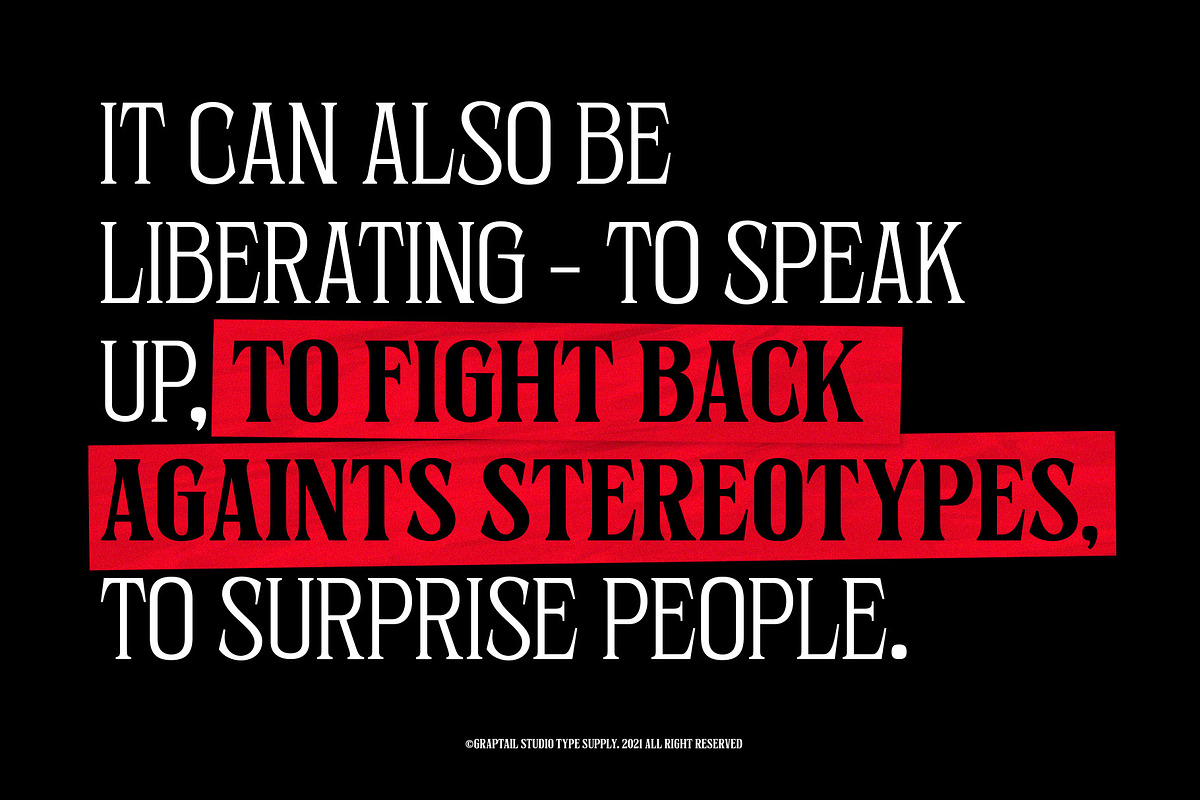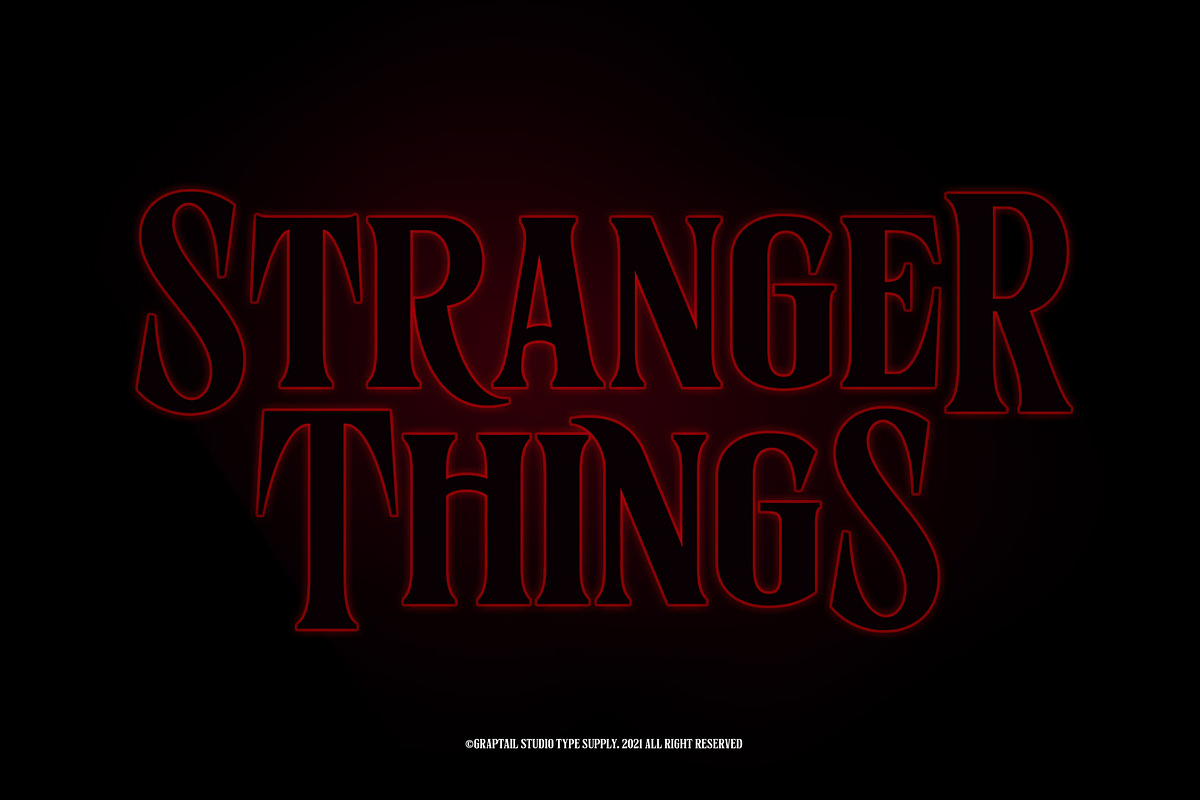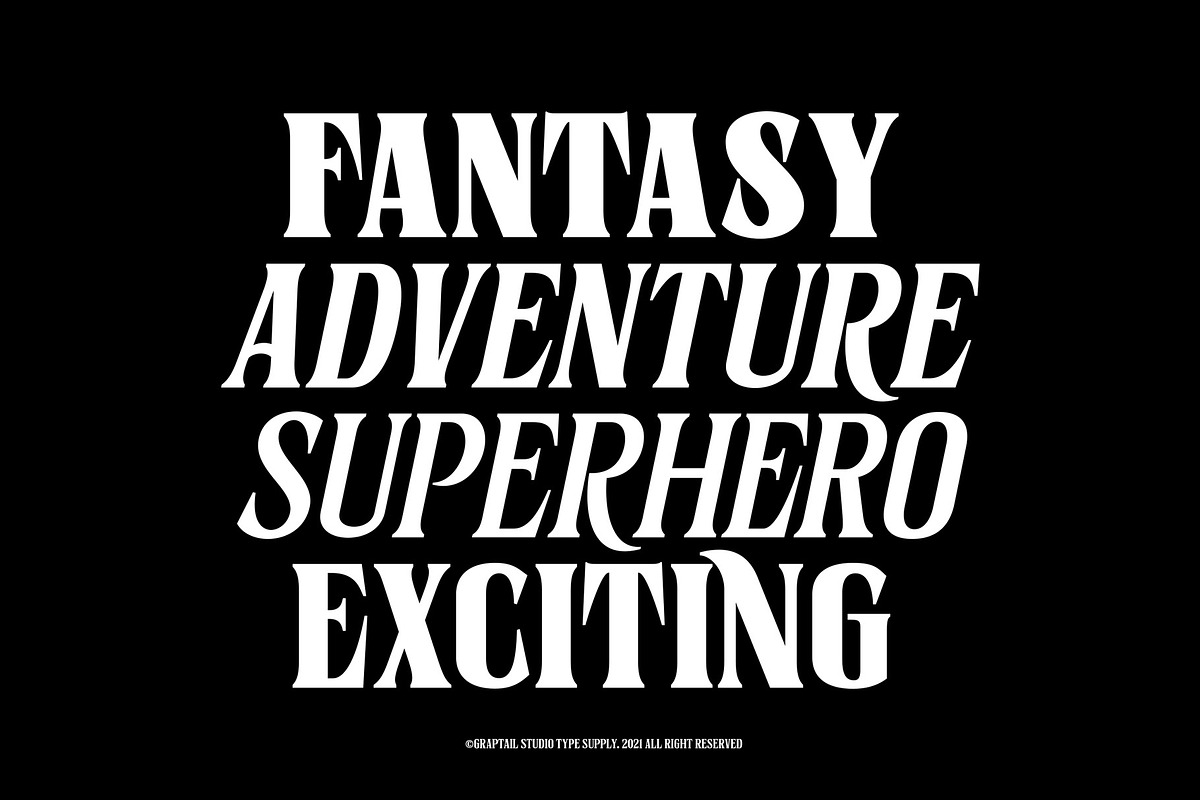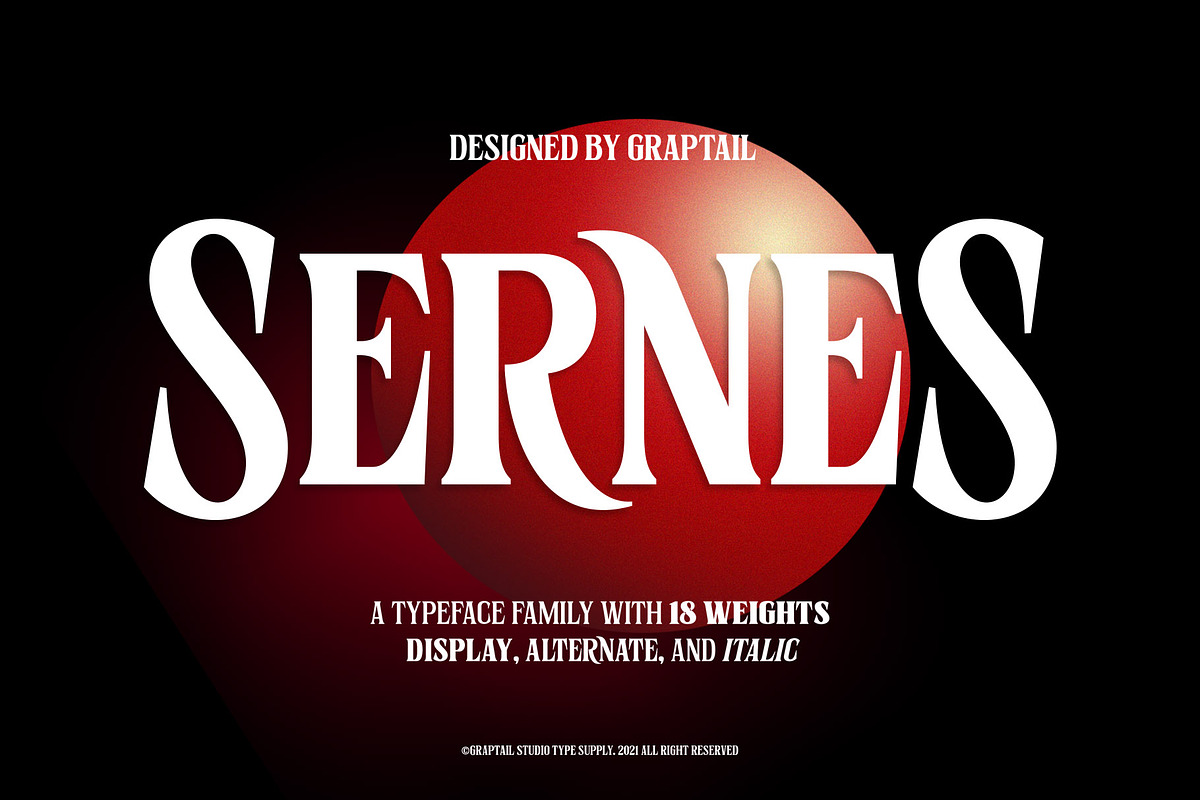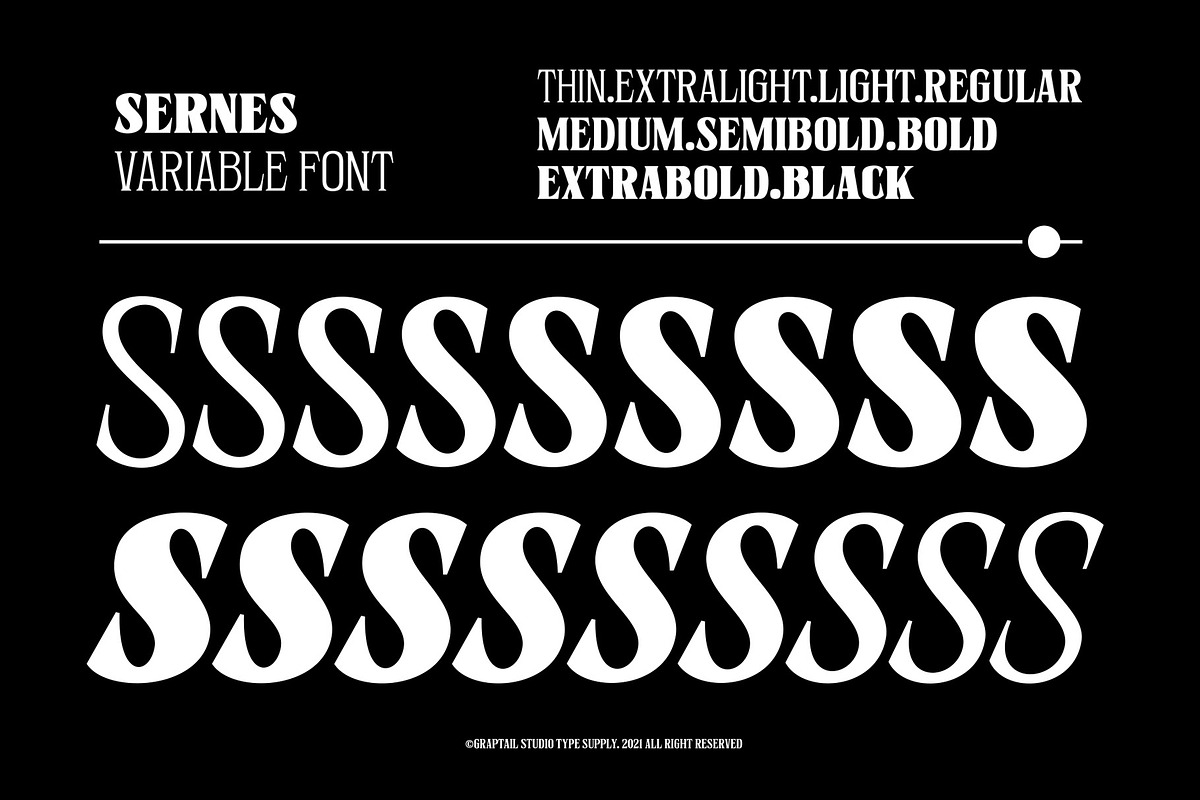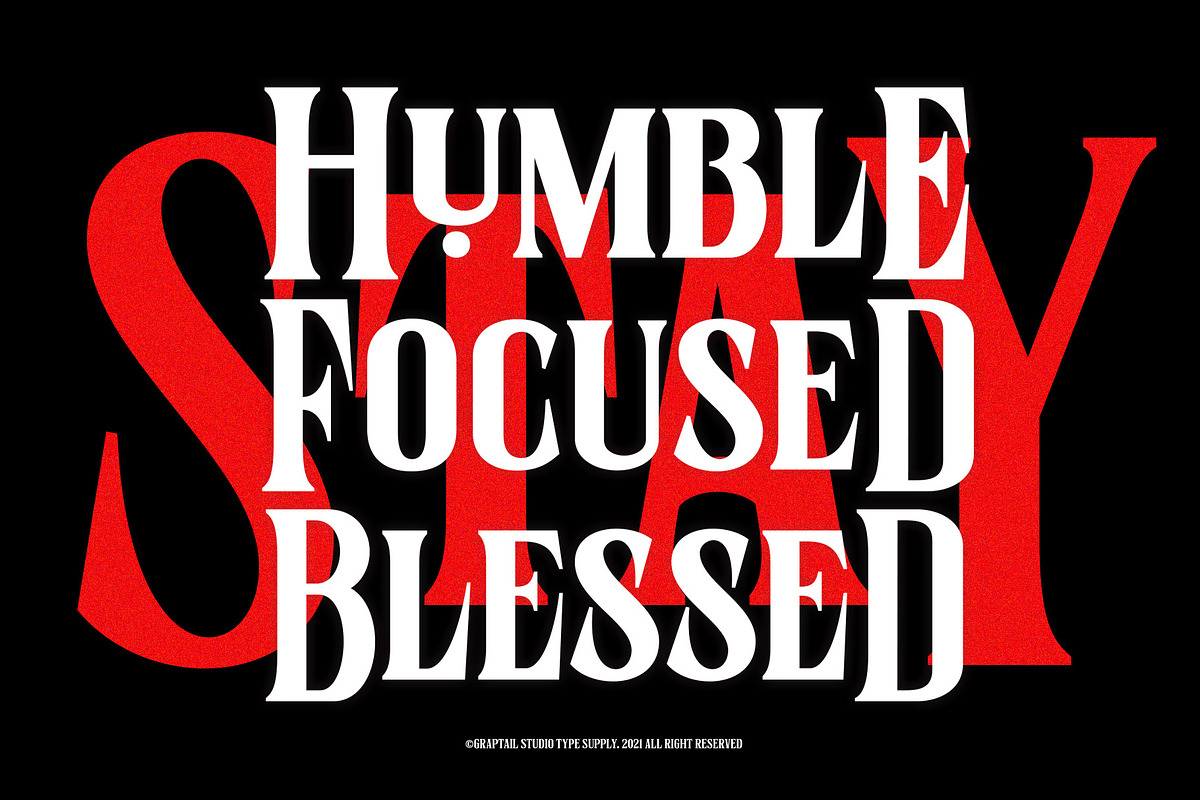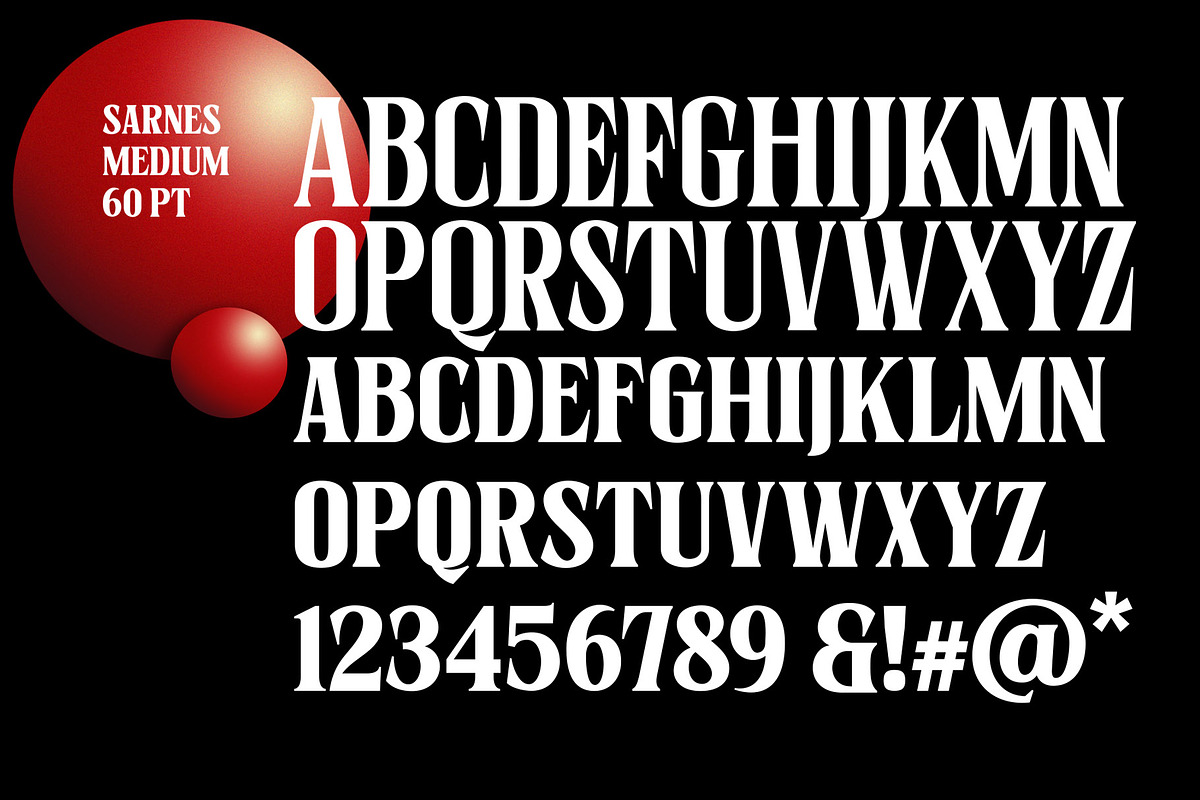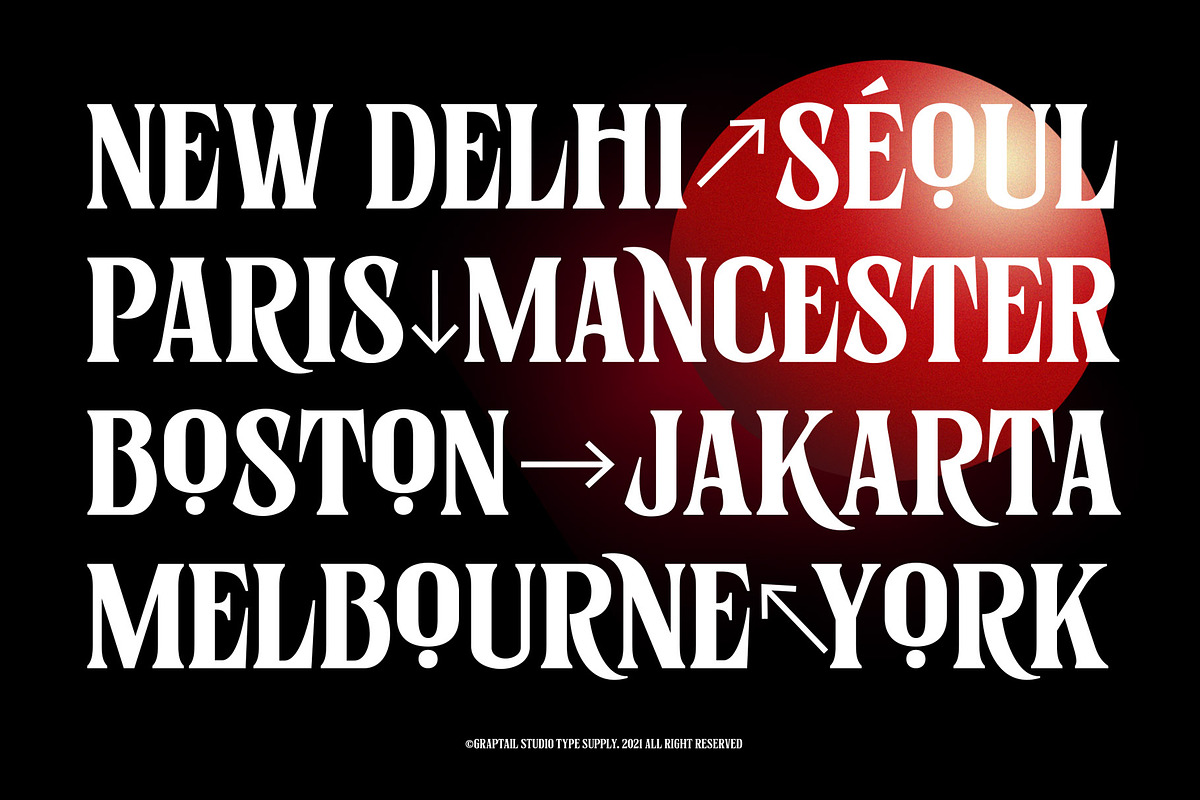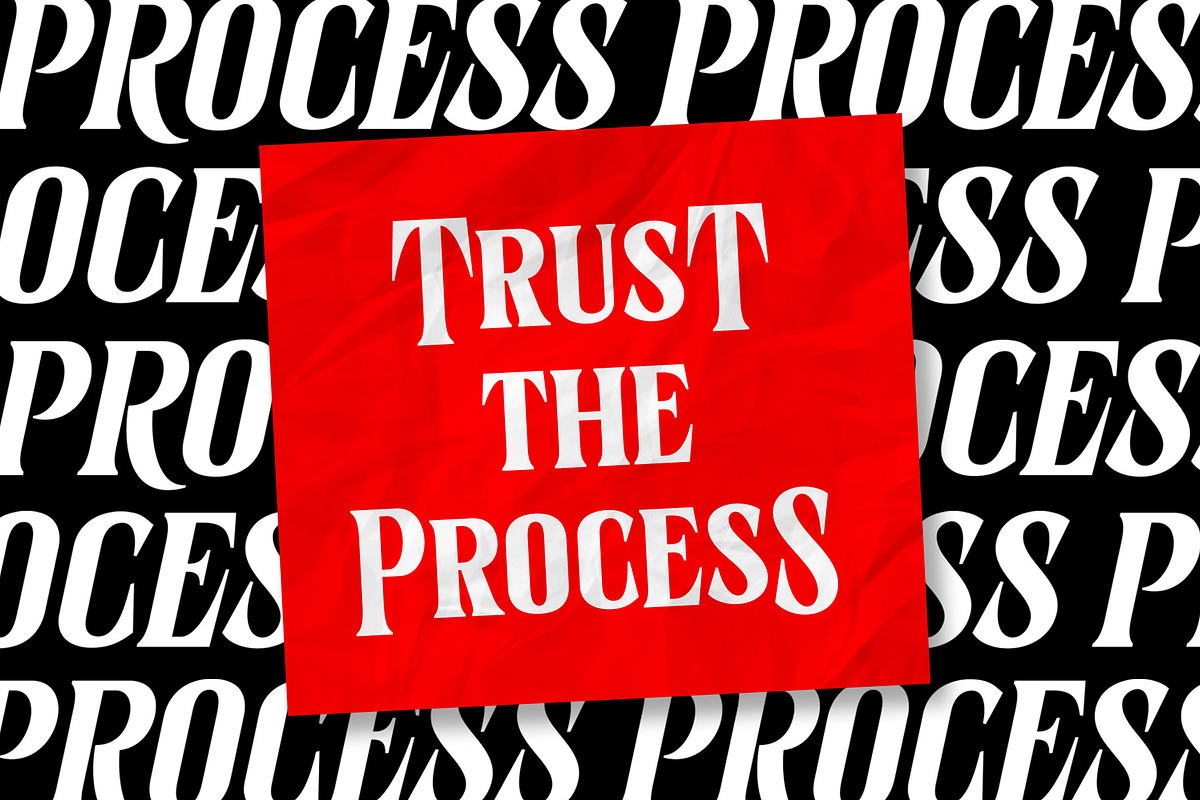
Sernes - Display Font
Sernes was inspired by the letterforms in the film series "stranger things" with condensed letters.comes with 18 weights which includes display, alternate and italic.